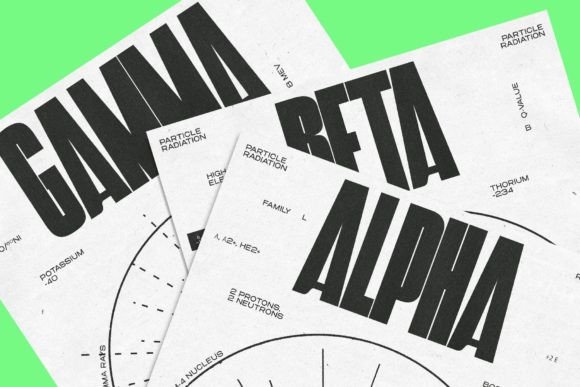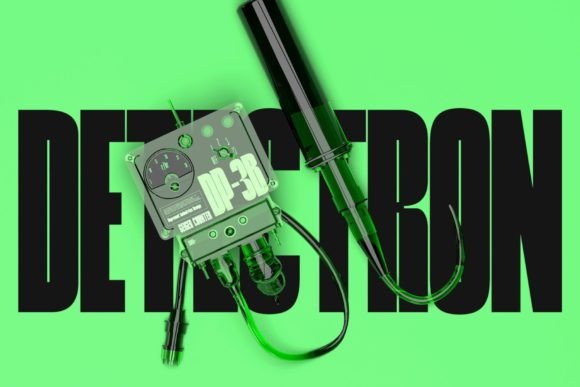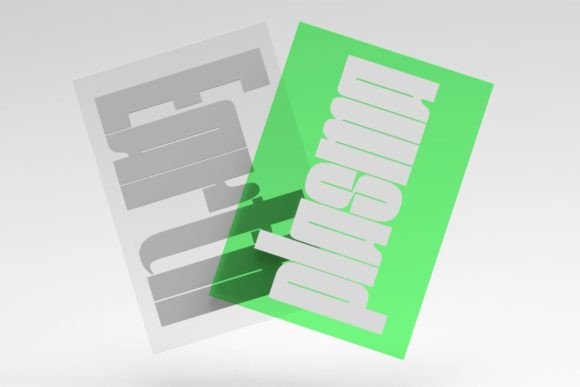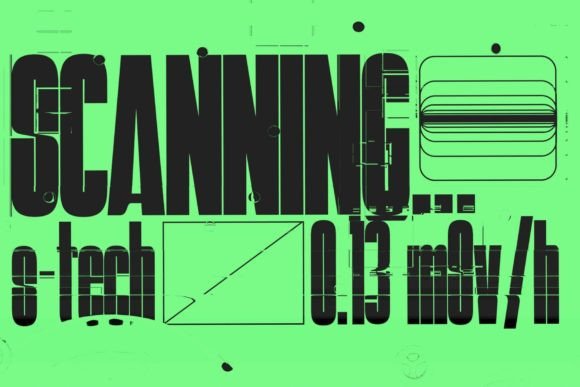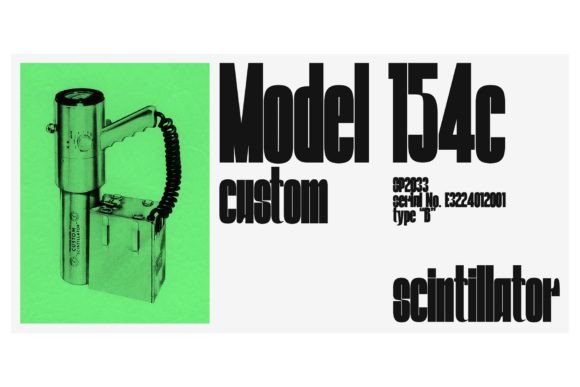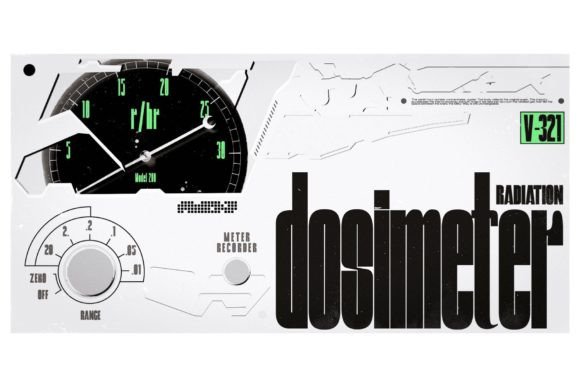
Introduction to Nucliometer Font
Nucleometer is a very contrasting and at the same time elegant display font.
It is ideal for large headlines and impressionable typography A feature of the Nucleometer is the rounding of the lowercase letters a, b and r, as well as a funny “tail” in the letters t, g, j, f, t, y.
Key Features of Nucliometer Font